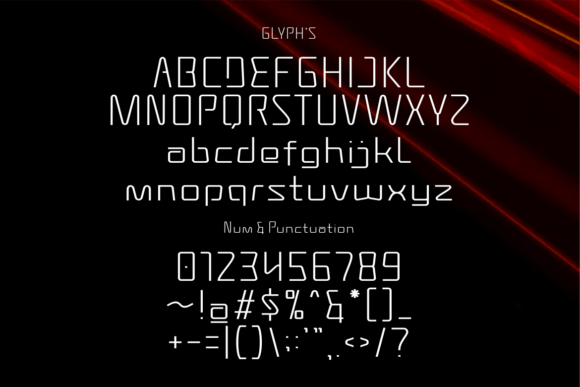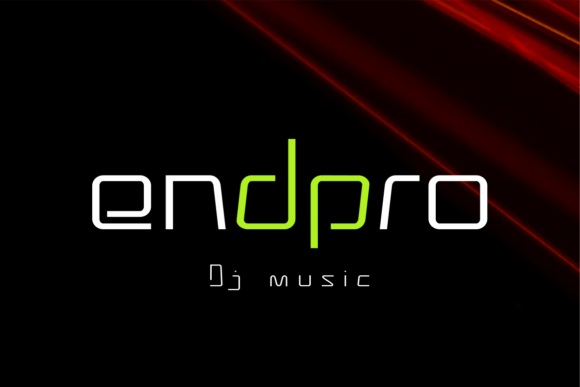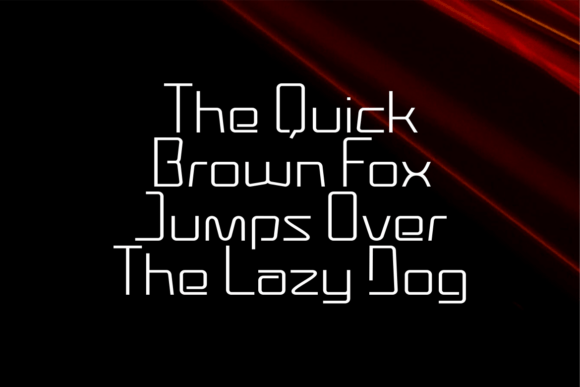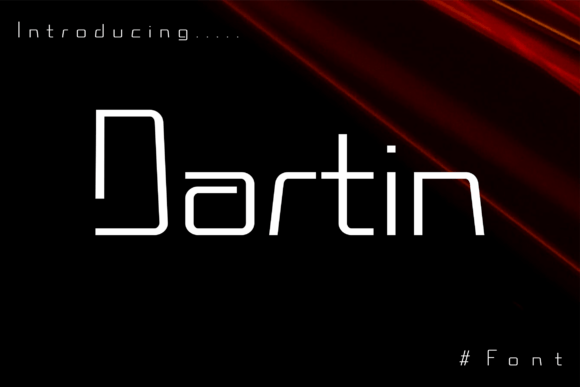
Experience the Electric Energy of Dartin: The Ultimate Techno-Inspired Font
Are you ready to infuse your designs with the pulsating rhythm and effervescence of the underground music scene? Look no further than Dartin, the bold and futuristic font that’s about to revolutionize the way you create. As a techno-inspired typeface, Dartin is the perfect tool for DJs, club owners, music lovers, and partygoers alike who want to add an extra layer of excitement to their projects.
The Birth of Dartin: A Font that’s in Tune with the Beat
Dartin is more than just a font – it’s an experience. Its bold and futuristic design line is inspired by the vibrant energy of the techno scene, where the rhythm never stops and the excitement is palpable. Whether you’re designing event posters, album covers, or club visuals, Dartin is the perfect choice to capture the essence of the night and get your audience moving.
Unleash Your Creativity with Dartin’s Unique Features
So, what makes Dartin stand out from the crowd? Here are just a few of its unique features that make it an indispensable tool for designers and crafters:
- Bold and Futuristic Design: Dartin’s bold lines and futuristic aesthetic make it perfect for creating eye-catching designs that demand attention.
- Techno-Inspired: Dartin’s design is inspired by the techno scene, making it the perfect choice for music-related projects, such as event posters, album covers, and club visuals.
- Versatile: Dartin is a versatile font that can be used for a wide range of projects, from print to digital media.
- Easy to Read: Despite its bold design, Dartin is easy to read, even at small sizes, making it perfect for use on a variety of materials.
How to Use Dartin to Elevate Your Designs
Now that you’ve got a feel for what Dartin is all about, let’s dive into some practical ways you can use it to elevate your designs:
Event Posters
Whether you’re promoting a concert, festival, or club night, Dartin is the perfect font to grab attention and get people excited. Its bold design and techno-inspired aesthetic make it a natural fit for event posters that need to stand out in a crowded space.
Album Covers
If you’re a musician or music producer, Dartin is a great choice for your album cover. Its futuristic design and bold lines will help your album stand out on music streaming platforms and in record stores.
Club Visuals
Take your club visuals to the next level with Dartin. Whether you’re designing flyers, social media graphics, or in-club promotions, Dartin’s bold and futuristic design will help create an otherworldly atmosphere that’ll keep the party going.
Why You Shouldn’t Miss Out on Dartin
In today’s competitive design landscape, it’s essential to have a unique edge that sets you apart from the crowd. Dartin provides that edge, giving you the tools to create designs that are not only visually stunning but also pulse with energy and excitement.
By incorporating Dartin into your design toolkit, you’ll be able to:
- Stand Out: Dartin’s bold and futuristic design will help your projects stand out in a crowded space.
- Connect with Your Audience: Dartin’s techno-inspired aesthetic will help you connect with music lovers and partygoers who crave excitement and energy.
- Elevate Your Brand: Whether you’re a DJ, club owner, or music producer, Dartin will help elevate your brand and create a lasting impression.
| Author | Monoletter |
Dartin is more than just a font – it’s a movement. By incorporating Dartin into your designs, you’ll be able to tap into the electric energy of the techno scene and create projects that pulse with excitement and energy. Whether you’re a designer, crafter, or music lover, Dartin is an indispensable tool that will help you stand out in a crowded space and connect with your audience on a deeper level. So why wait? Elevate your designs with Dartin today and experience the thrill of the night!